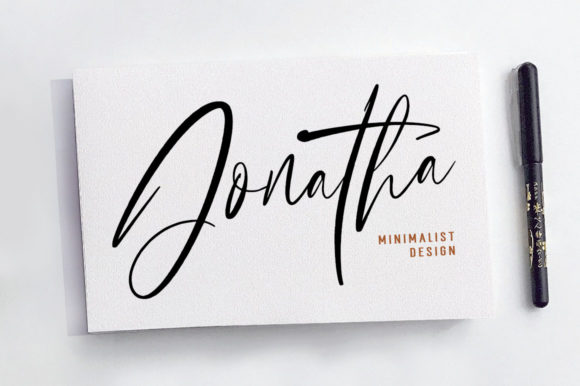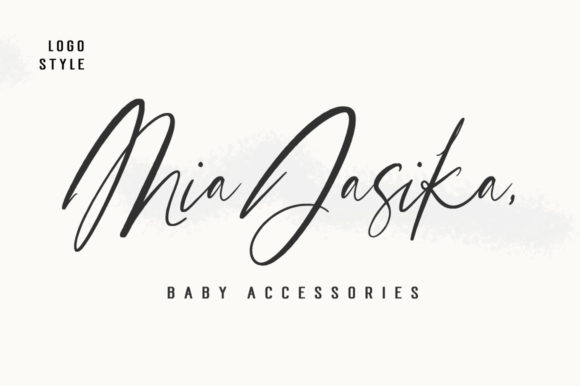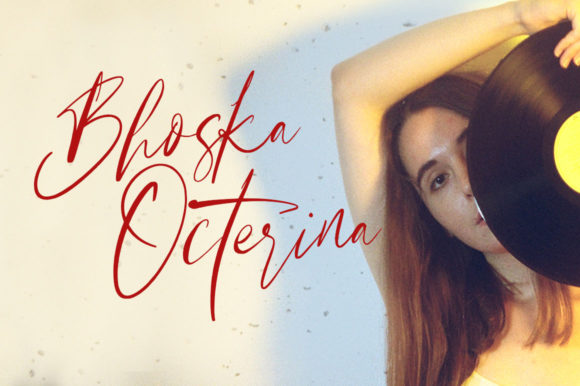
Chilok Font
About Chilok Font
Chilok is a friendly and elegant handwritten font. Get inspired by with its authentic feel and use it to create gorgeous wedding invitations, beautiful stationary art, eye-catching social media posts, and cute greeting cards.